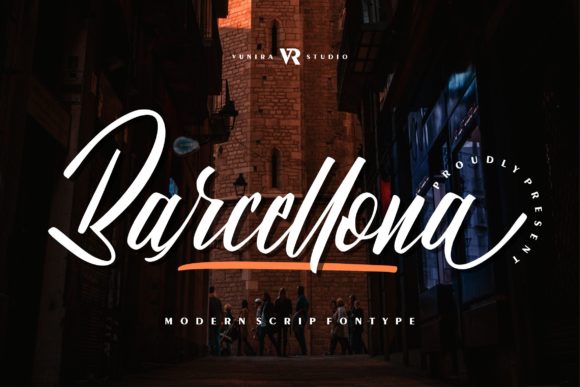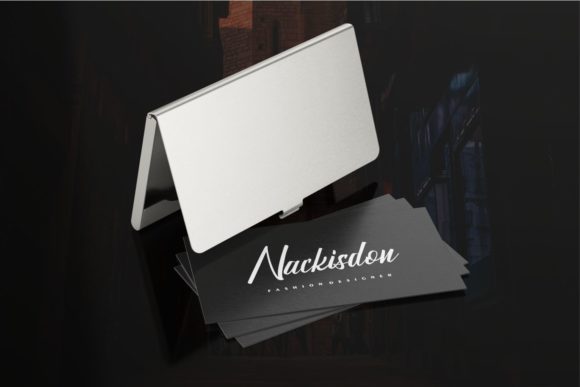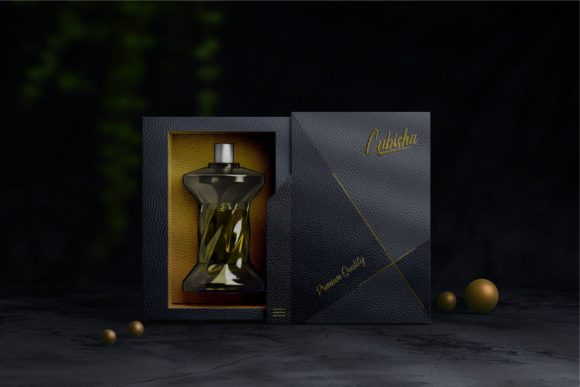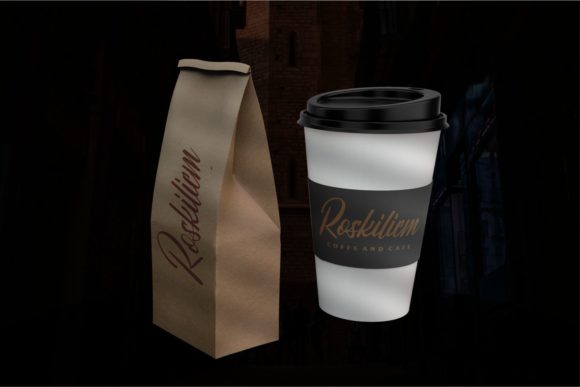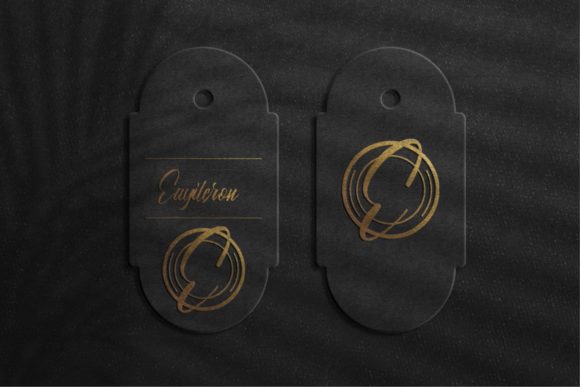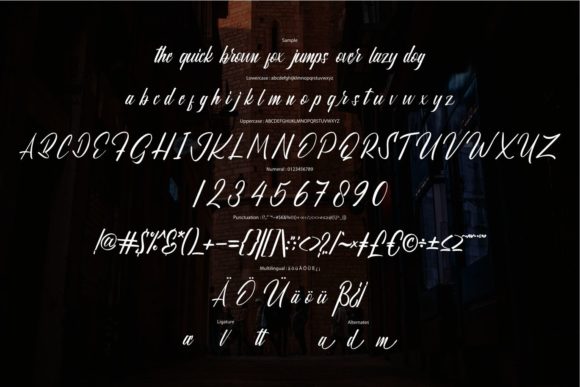
Barcellona Font
About Barcellona Font
Barcellona emerges as a delicate, elegant, and flowing handwritten font, distinguished by its beautiful and well-balanced characters. This font is designed to seamlessly complement a wide variety of designs, adding a touch of sophistication and charm. When incorporated into your most creative ideas, Barcellona has the transformative power to breathe life into your projects.
The delicacy of Barcellona’s script lends an air of refinement to your text, making it suitable for a diverse range of applications. Its elegant strokes and flowing nature contribute to the overall aesthetic appeal, creating a harmonious visual experience. Whether used in digital or print media, Barcellona adapts effortlessly, enhancing the beauty of your designs.
The well-balanced characters of Barcellona make it a versatile choice, allowing it to harmonize with different themes and styles. Whether applied to branding materials, invitations, or various creative projects, this font ensures a seamless integration that adds a touch of sophistication.
In summary, Barcellona is more than just a font; it is a design asset that enriches your creative endeavors. Its delicate, elegant, and flowing nature makes it a standout choice for designers seeking a versatile and visually appealing handwritten font. So, let Barcellona be the catalyst that brings your most creative ideas to life with grace and charm.